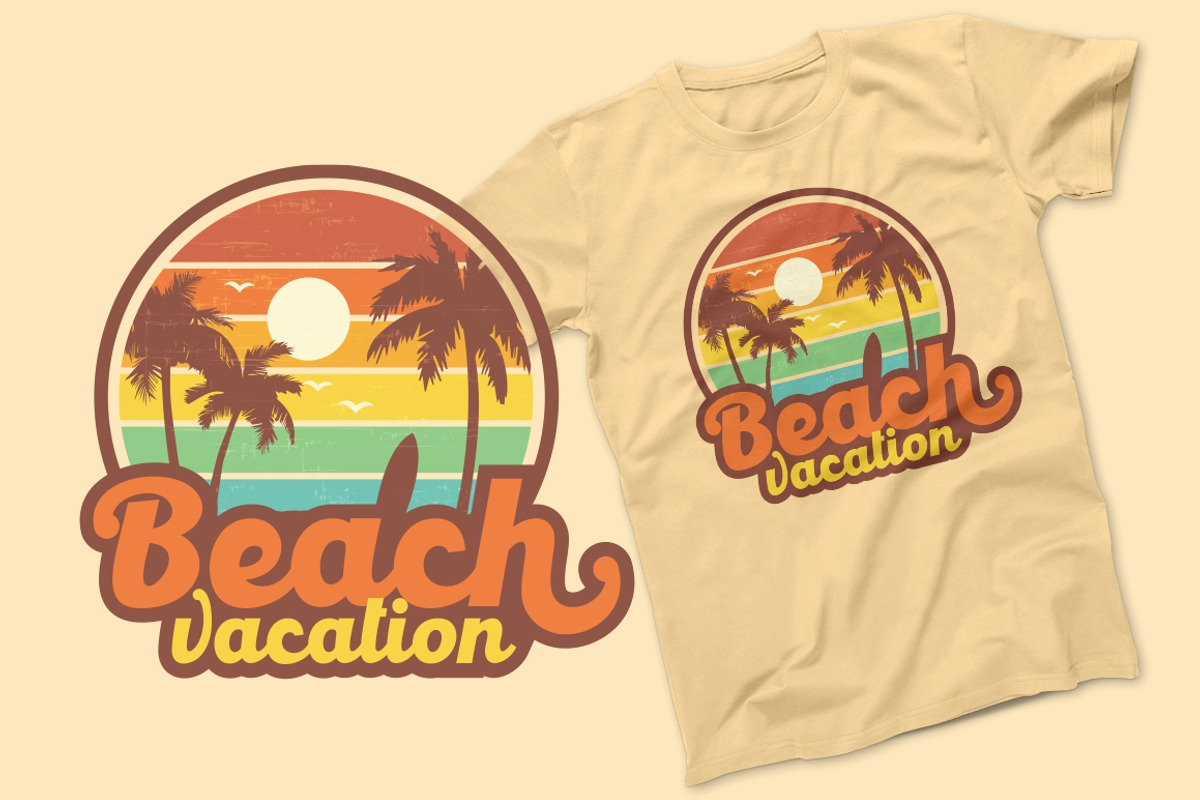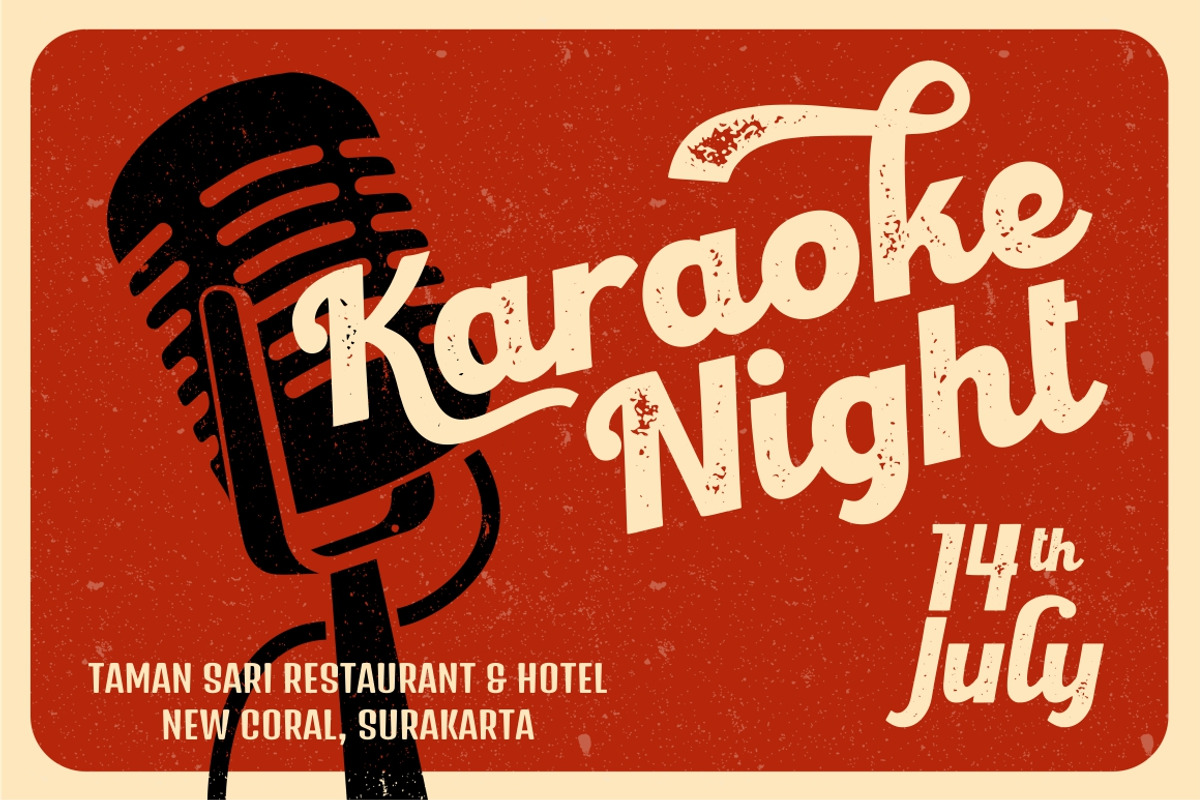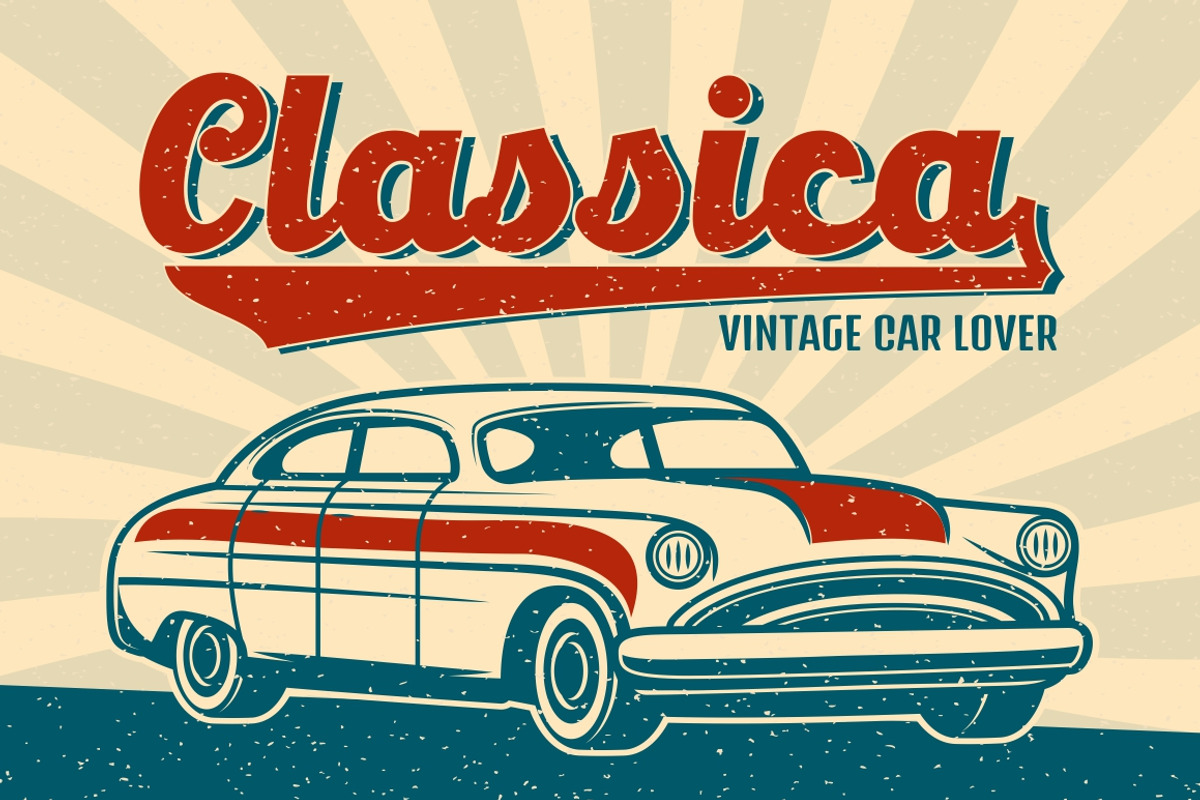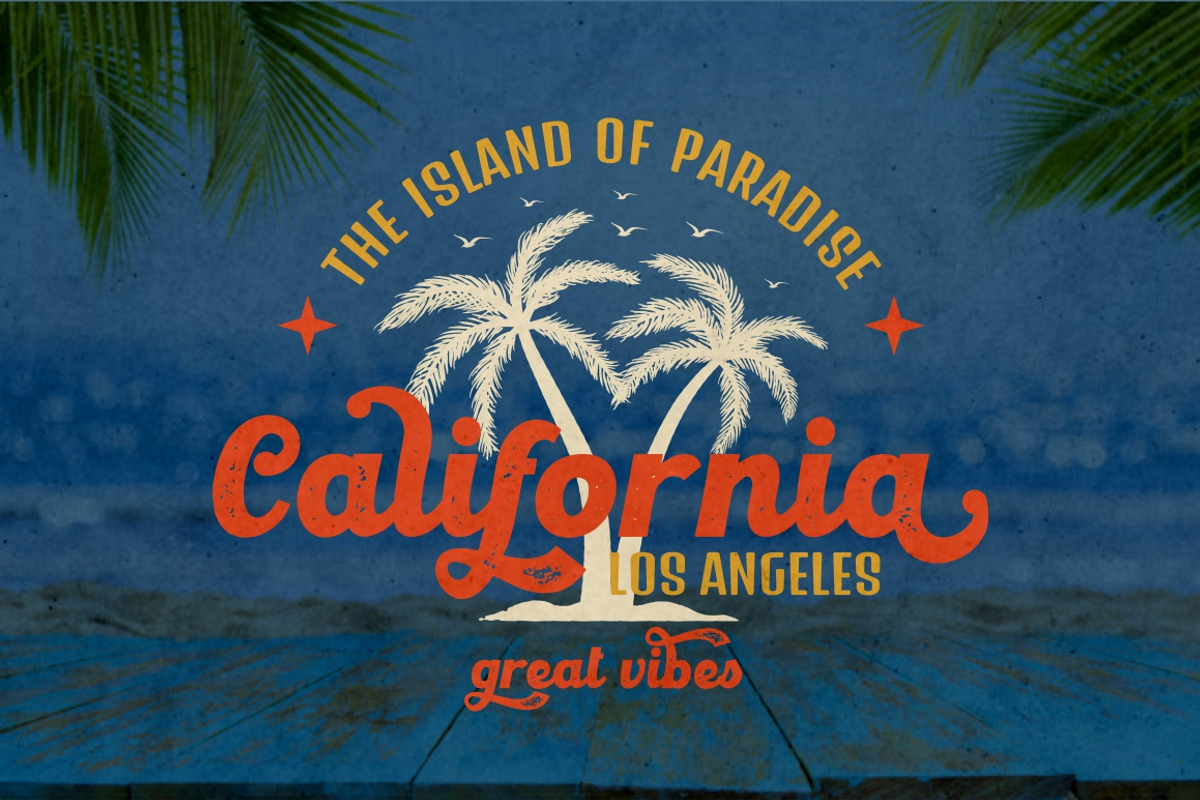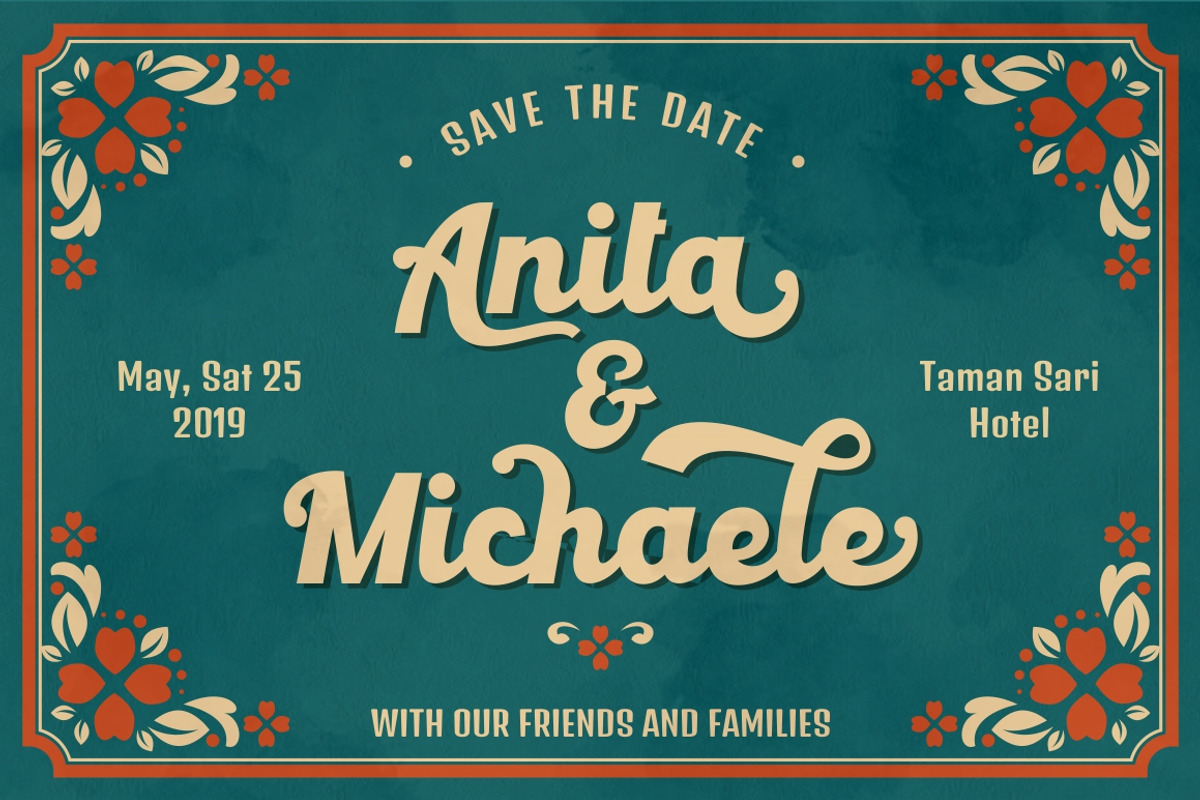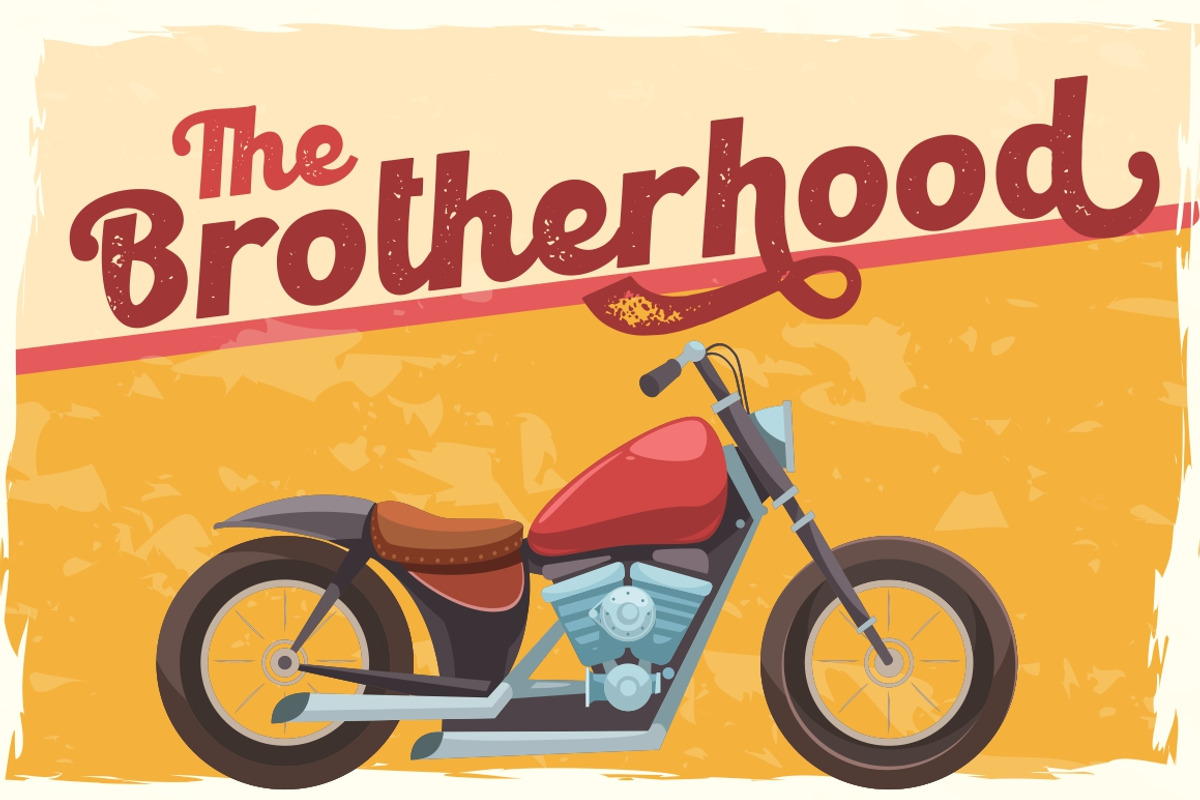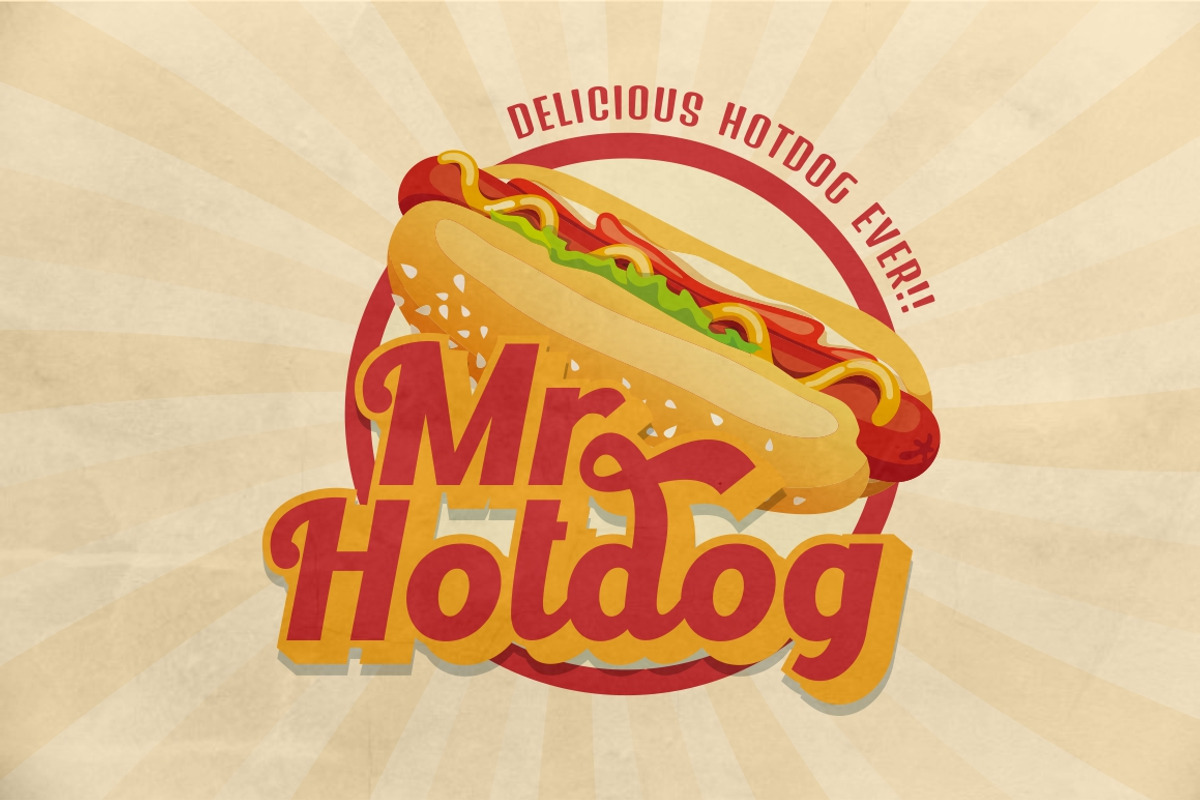
Retroking - Retro Font
Introducing Retroking. A retro style font, come with clean and rough font version. Retroking is perfect for vintage and retro design, badge, logos,t-shirt, poster, branding, packaging, signage, book coverand so much more!
Come with Opentype feature with a lot of alternates, its help you to make great lettering. This font is also support multi language.
Retroking - Retro Font by PutraCetol Studio fits naturally into Branding, posters, packaging, typography.